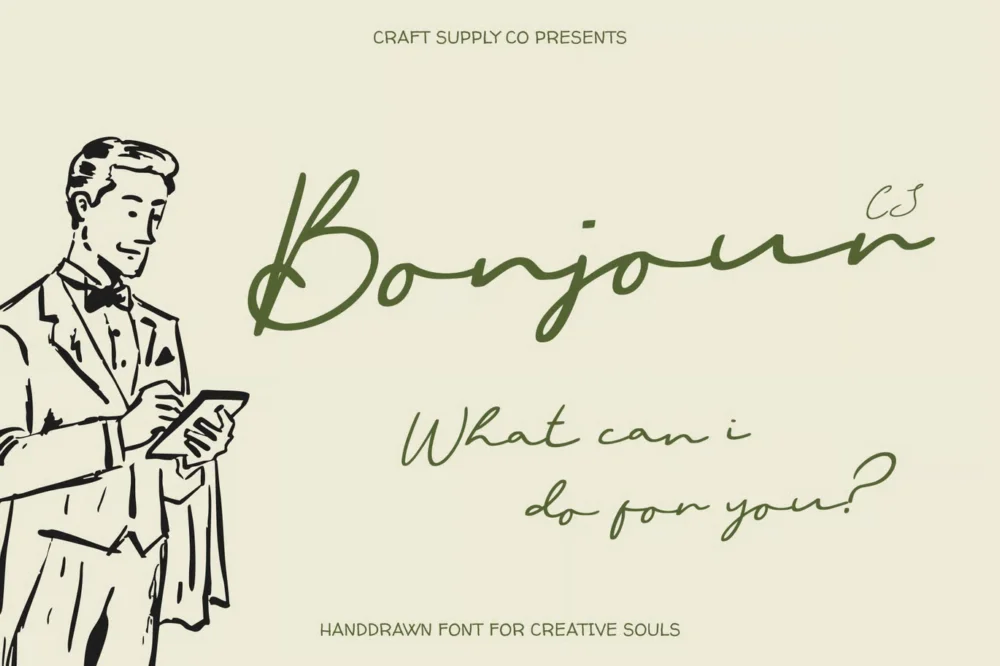
Bonjour – Signature Script Font
CS Bonjour – Elegant Signature Script with Personal Luxury Appeal Refined Signature Style with Personal Authenticity This is a personal and unique signature script font designed to mimic the fluid elegance of real handwritten signatures. Its smooth, confident strokes create a refined handcrafted look, bringing authenticity and sophistication to any design. With its natural flow and stylish movement, This font adds a professional yet intimate touch that elevates visual identity with ease.
Graceful Lines for a Luxurious Handwritten Feel Crafted with delicate curves and expressive pen-like strokes, this font delivers a luxurious handwritten aesthetic that feels both modern and timeless. The subtle variations and organic rhythm make each letter appear genuinely written by hand, creating a polished signature style perfect for high-end and elegant applications.
Perfect for Logos and Premium Branding This font shines in branding work where personal identity and luxury presentation are essential. Its signature-style structure enhances logos, taglines, and brand marks with a sense of individuality and prestige. Ideal for fashion labels, beauty brands, boutique businesses, and lifestyle creators, this font communicates elegance, confidence, and authenticity.
Ideal for Luxury Invitations and Stylish Print Designs From wedding invitations to exclusive event stationery, this font adds sophistication and emotional warmth to every layout. The graceful script style delivers a memorable visual impact, making invitations feel personal and artistically crafted. This font brings signature charm, refined beauty, and luxurious flair to any creative project.